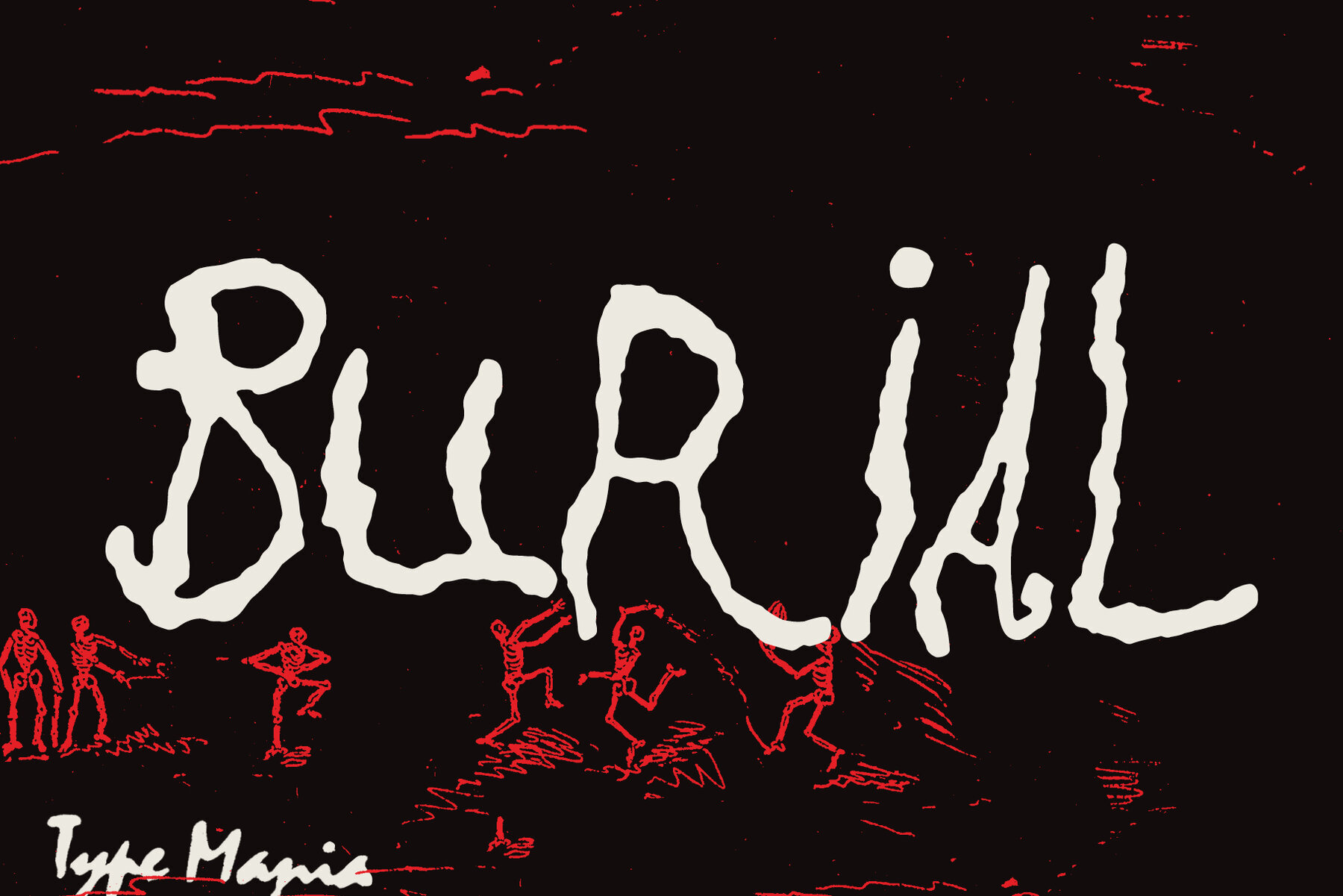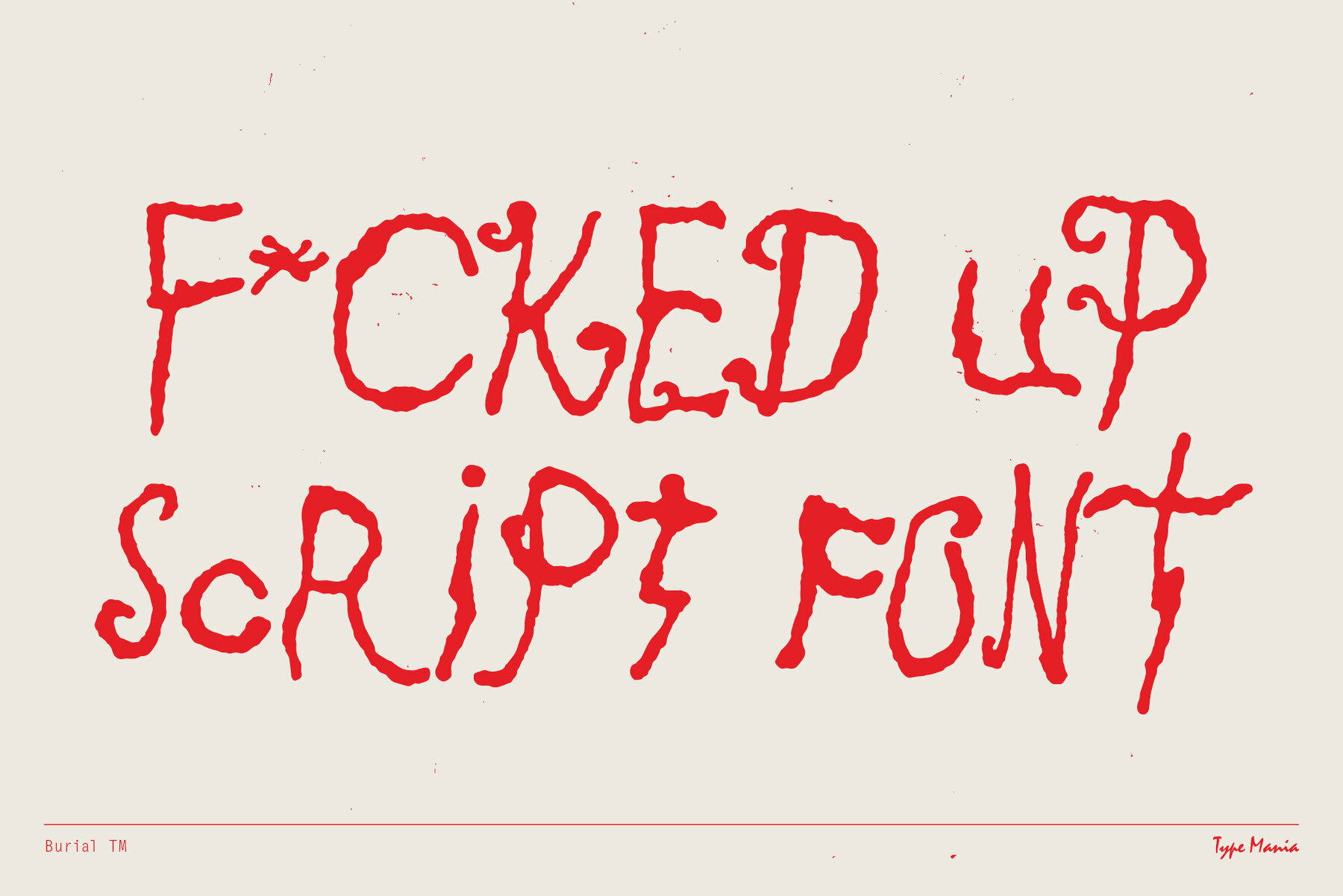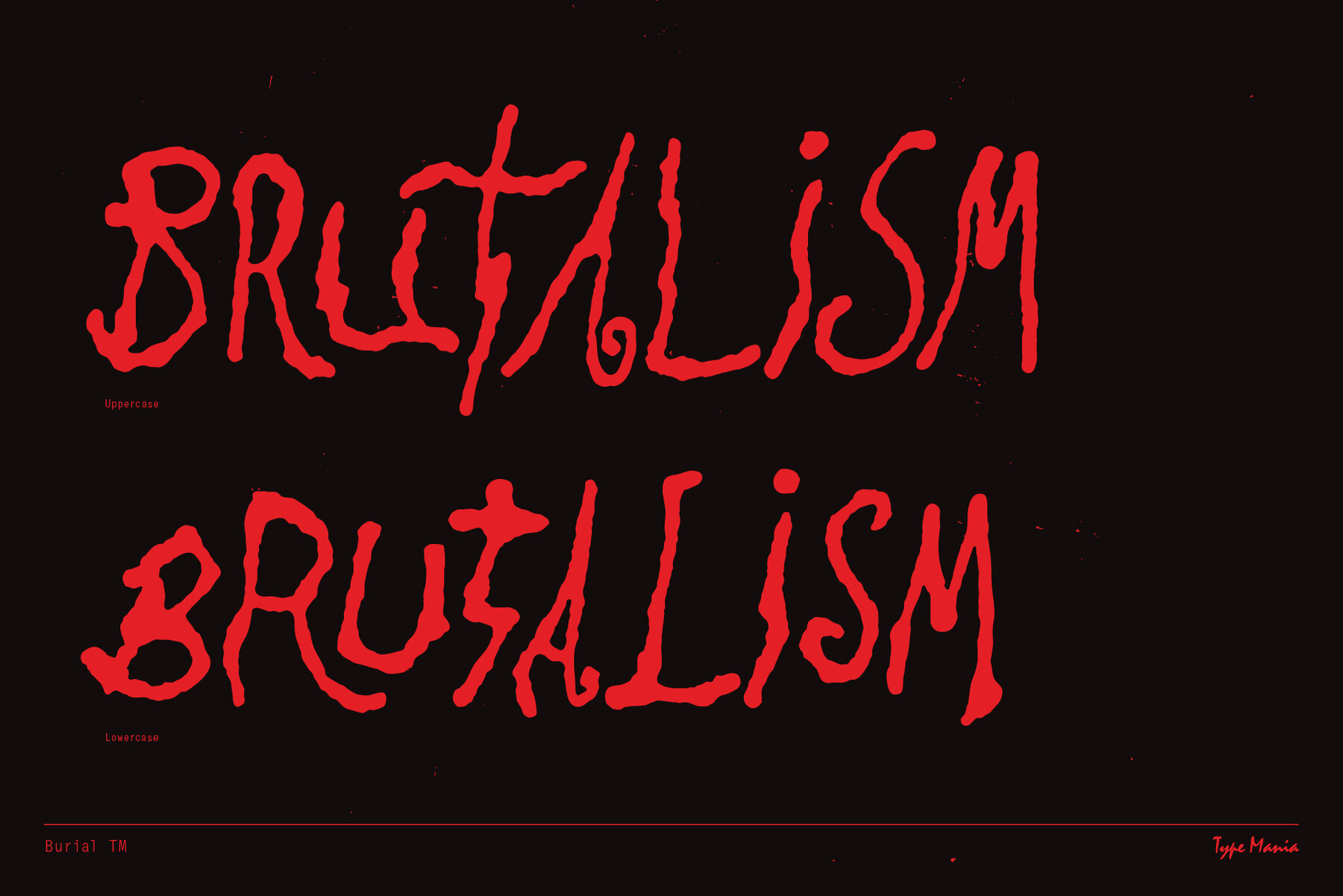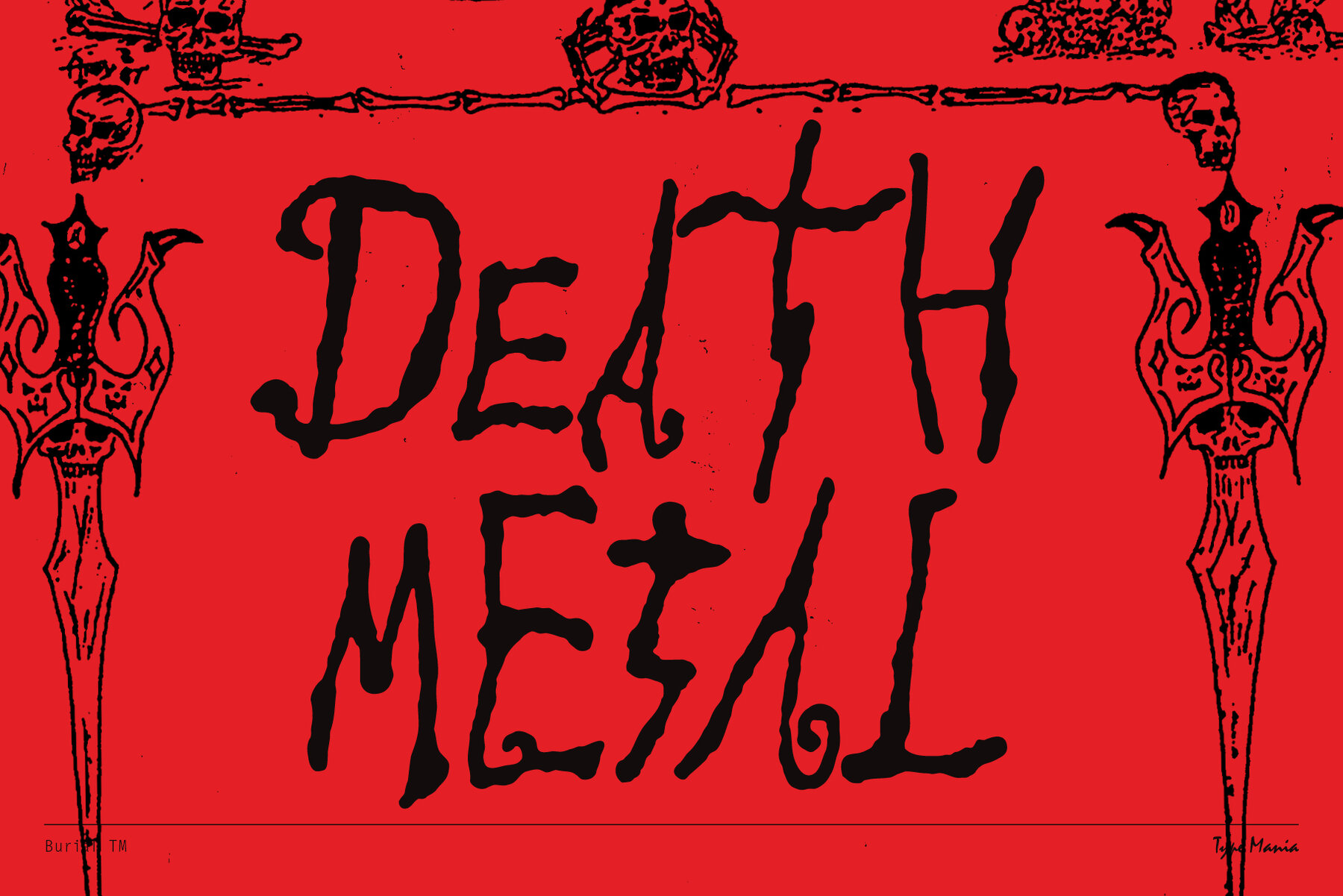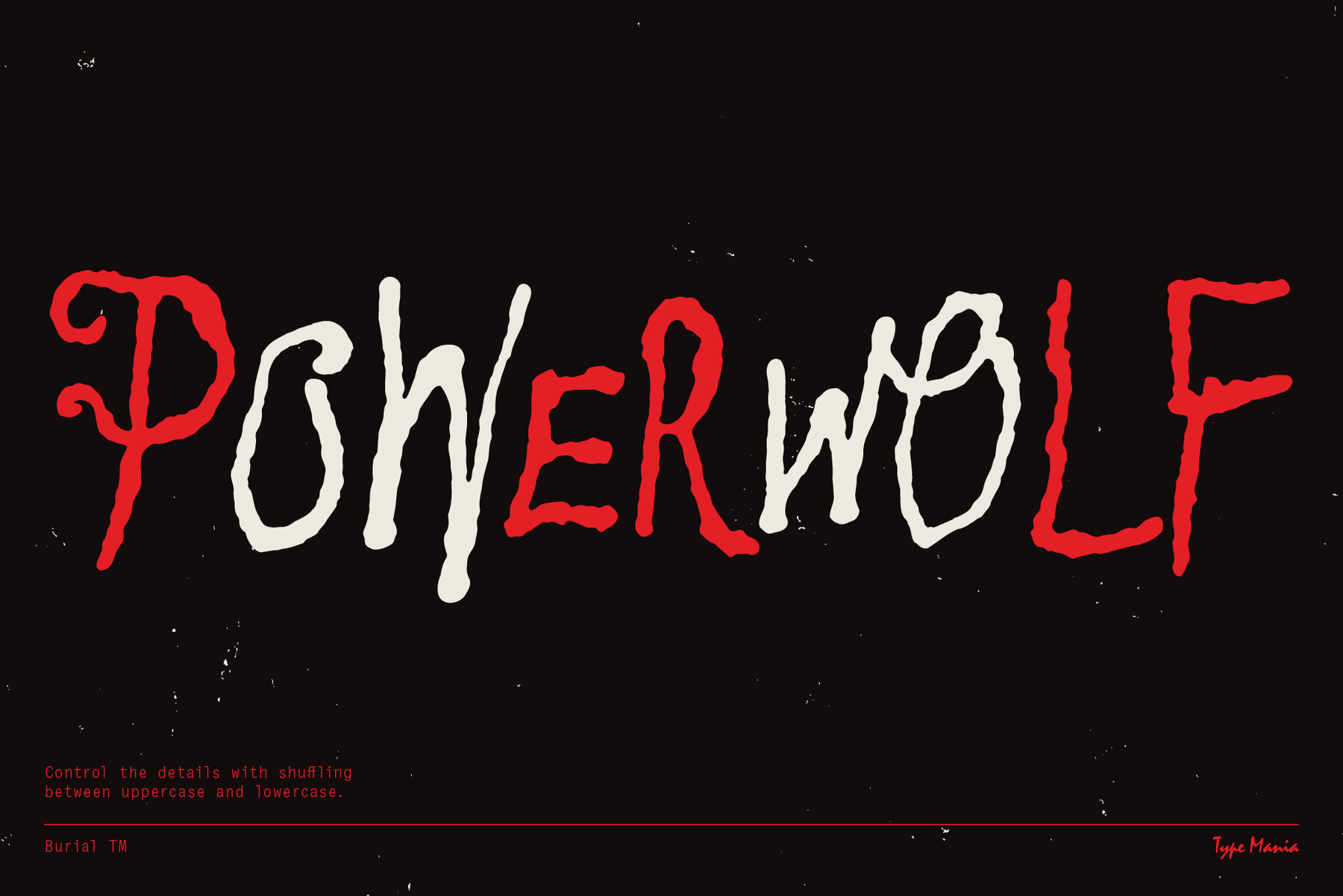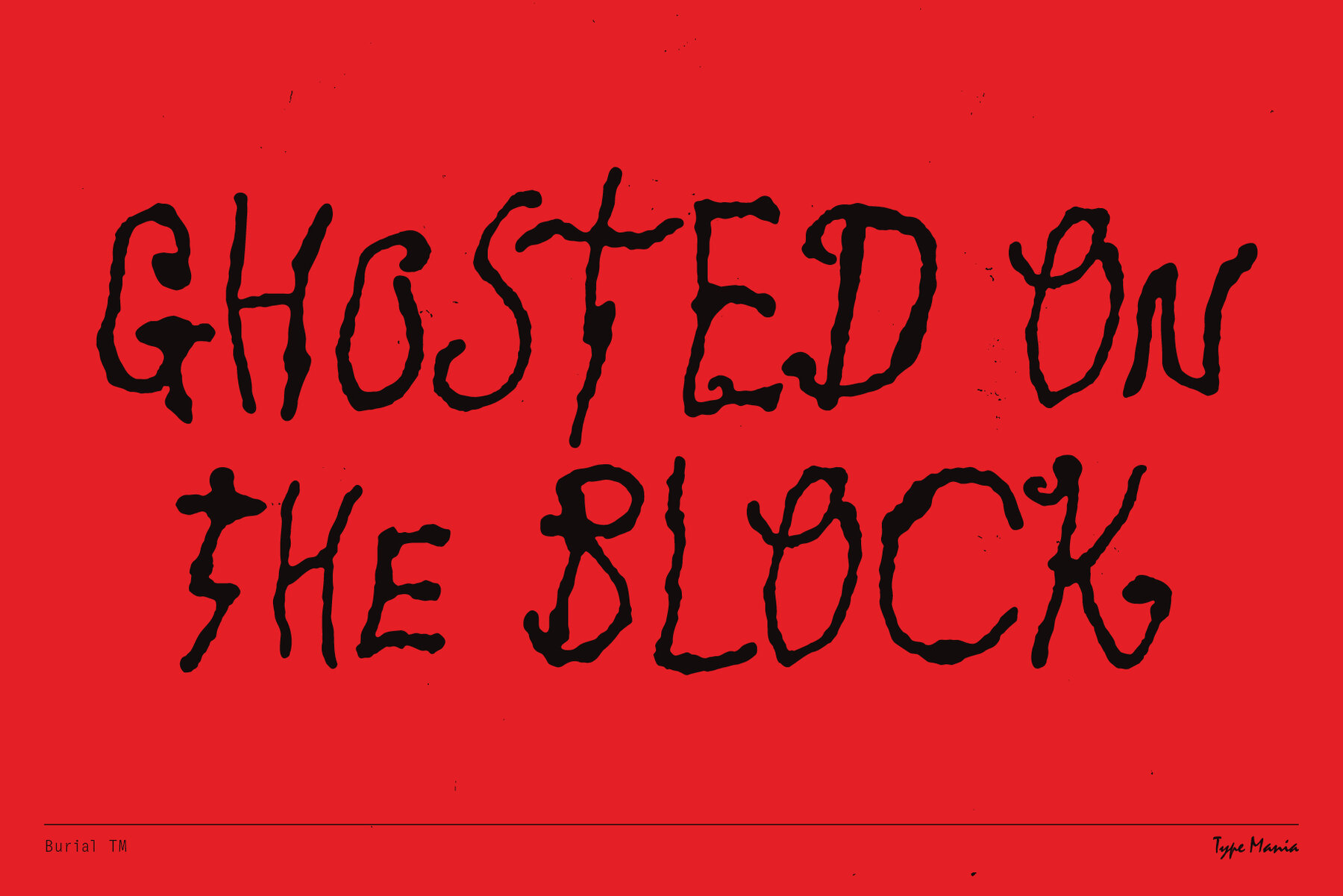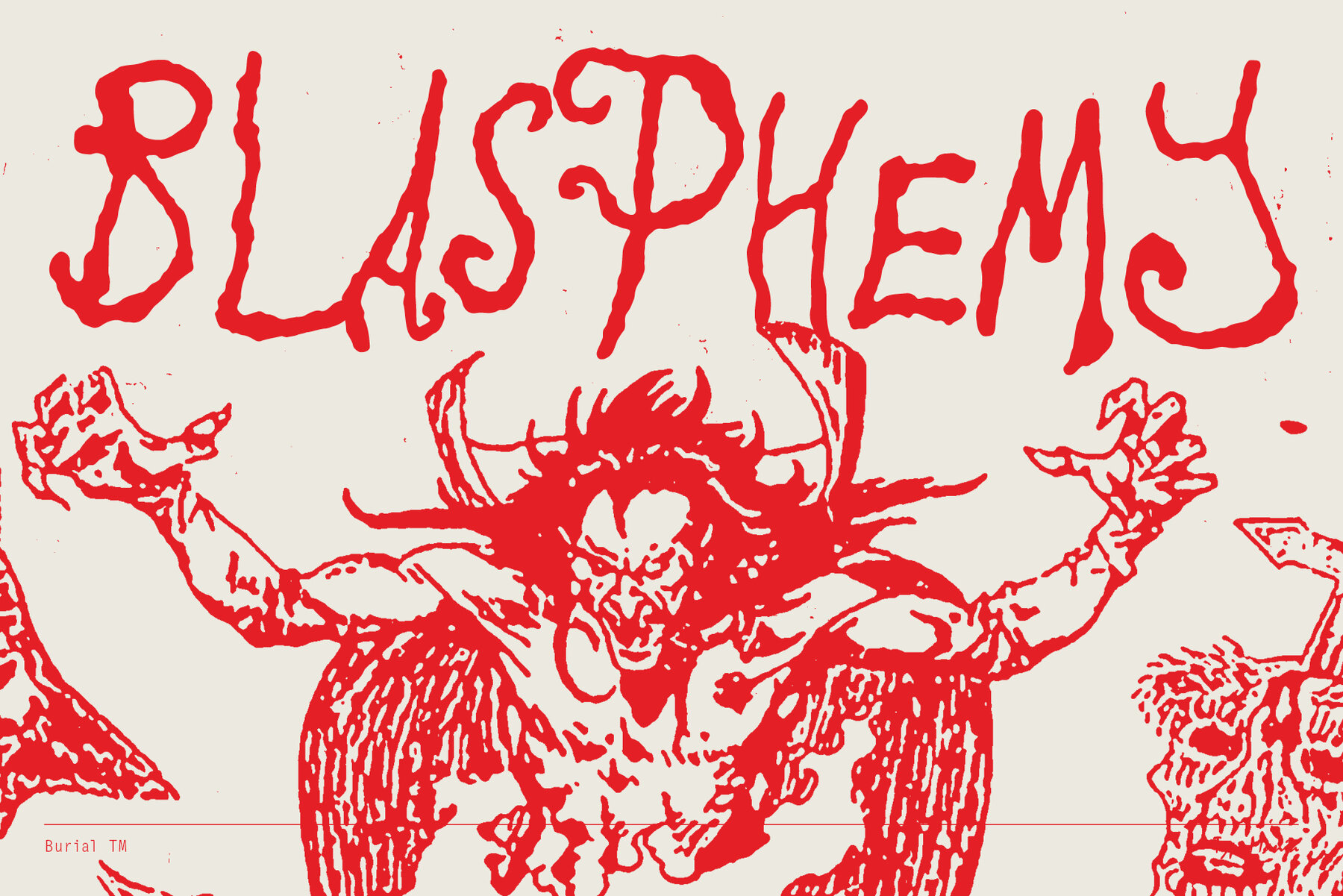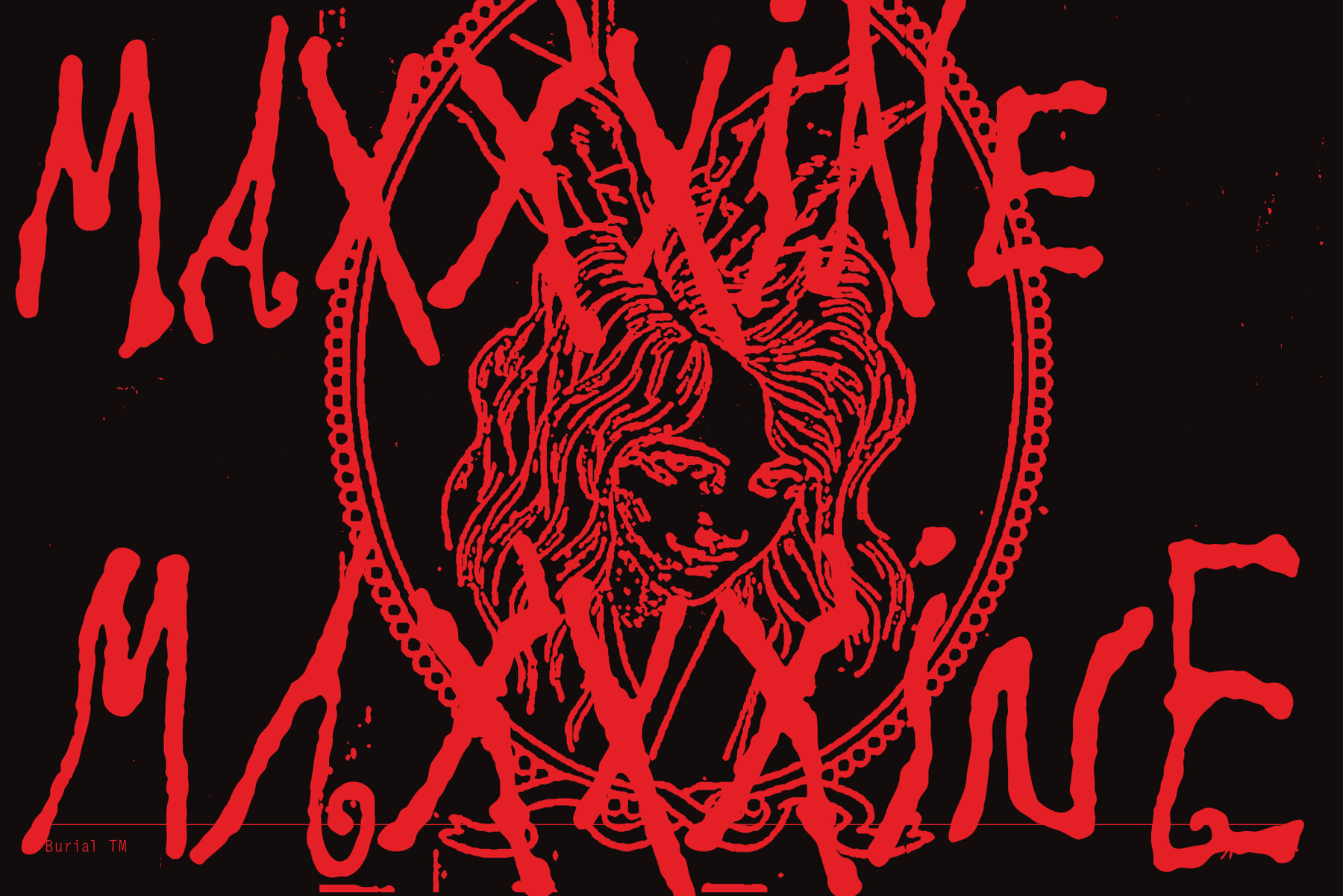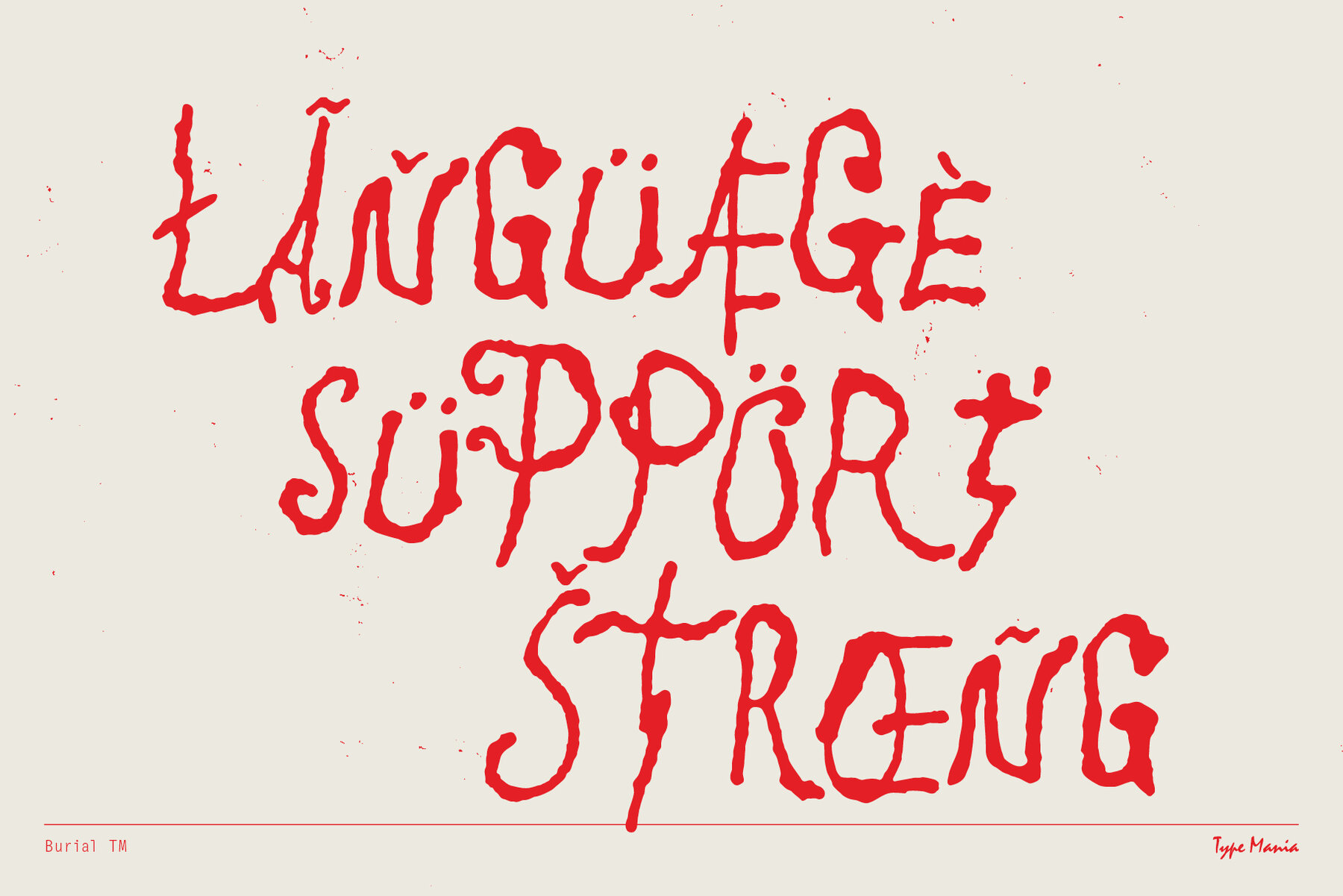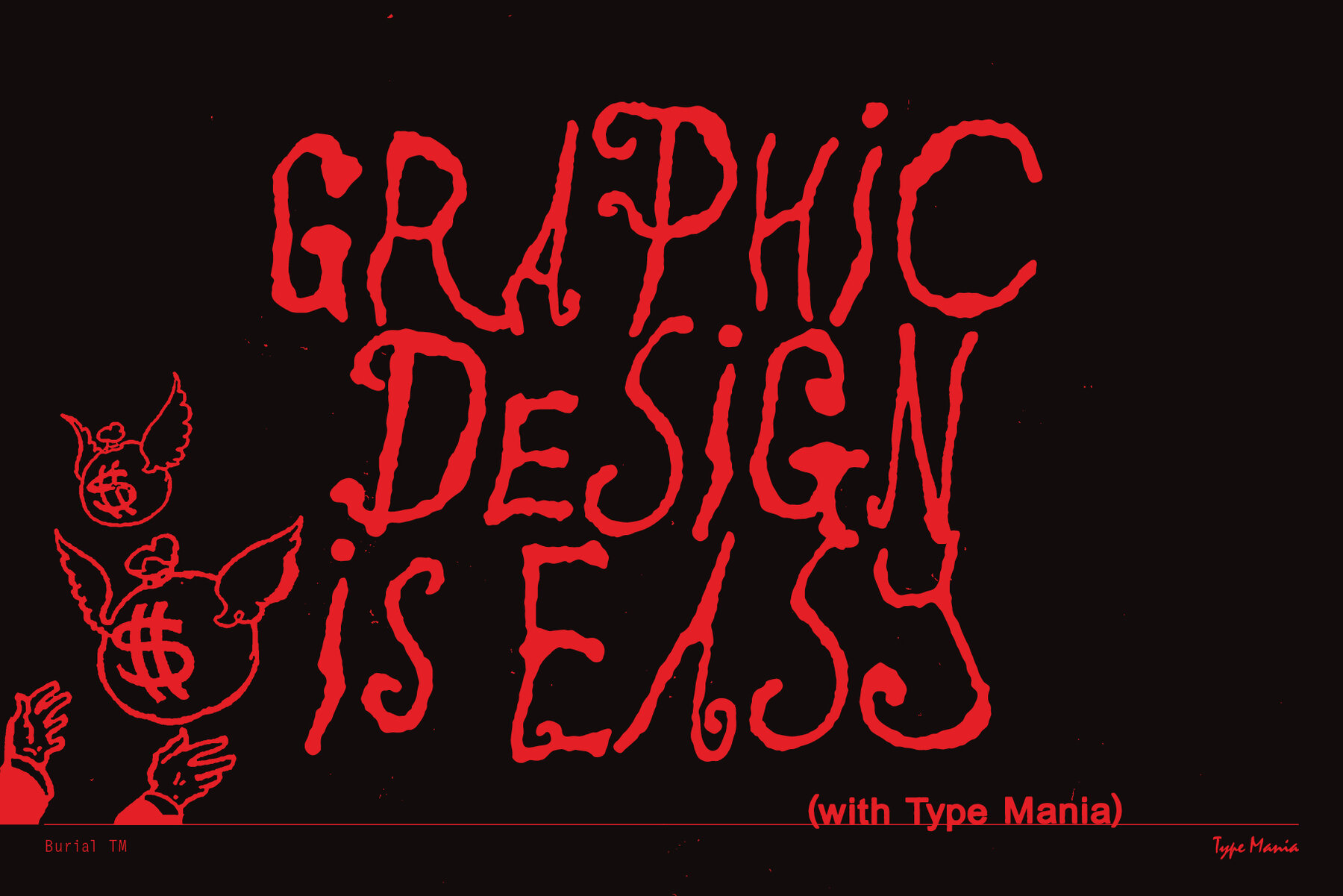
Burial TM: Timeless Typography for Modern Challenges
In an era textured with complexity, the Burial TM typeface offers quiet strength, leaving a lasting impact without the need for bold proclamations. Designed for our uncertain times, this font carries an elegant subtlety, befitting projects that require depth and resilience.